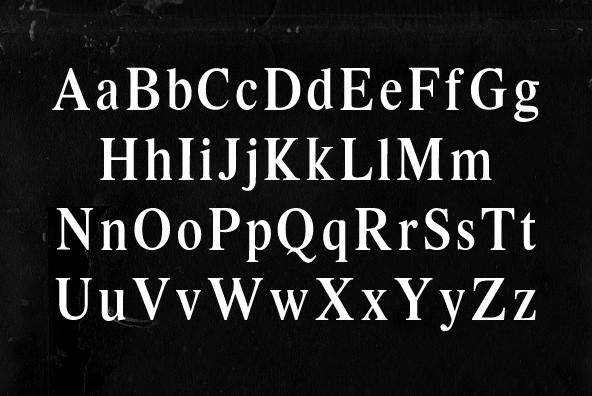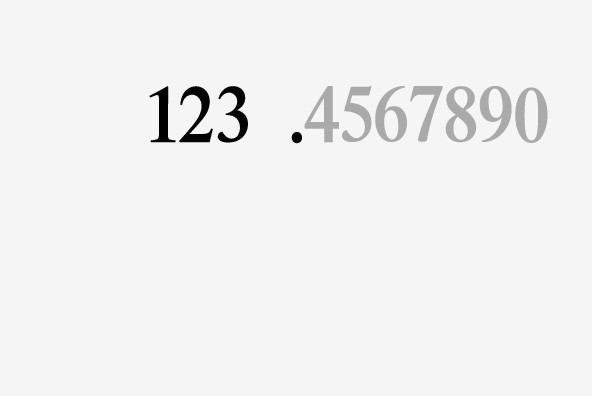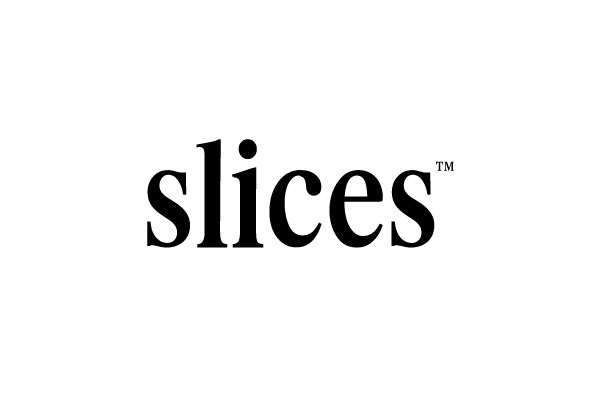
Intellecta Romana Humanistica
Foundry: Intellecta Design
A classic serif design remastered by Intellecta Design. Designed around an antique theme, Romana Humanistica works great in display purposes. Contains a limited amount of letter designs, works best when used for headers.